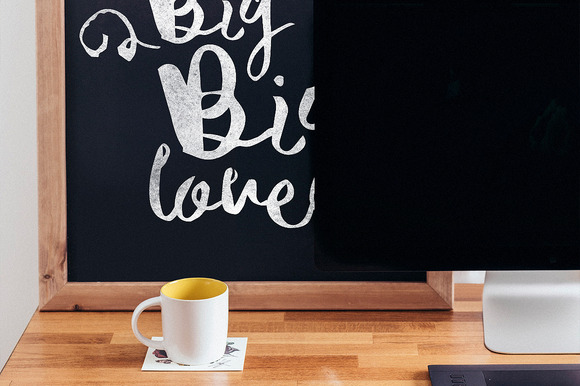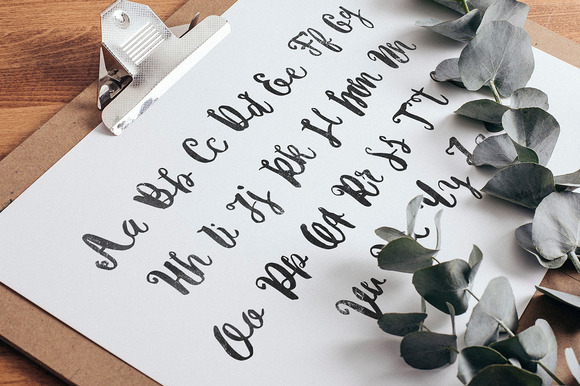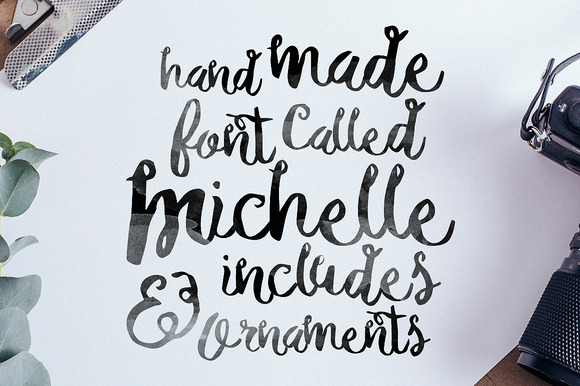
Michelle Font + Bonus
Michelle, inspired by the free style hand made font. I made this great font just for you who is looking for something natural, script for your logotype or maybe for a wedding card or some headlines for your website. This great font its just perfect for that!.
• Uppercase
• Lowercase
• Numerals & Punctuations
• A few special characters